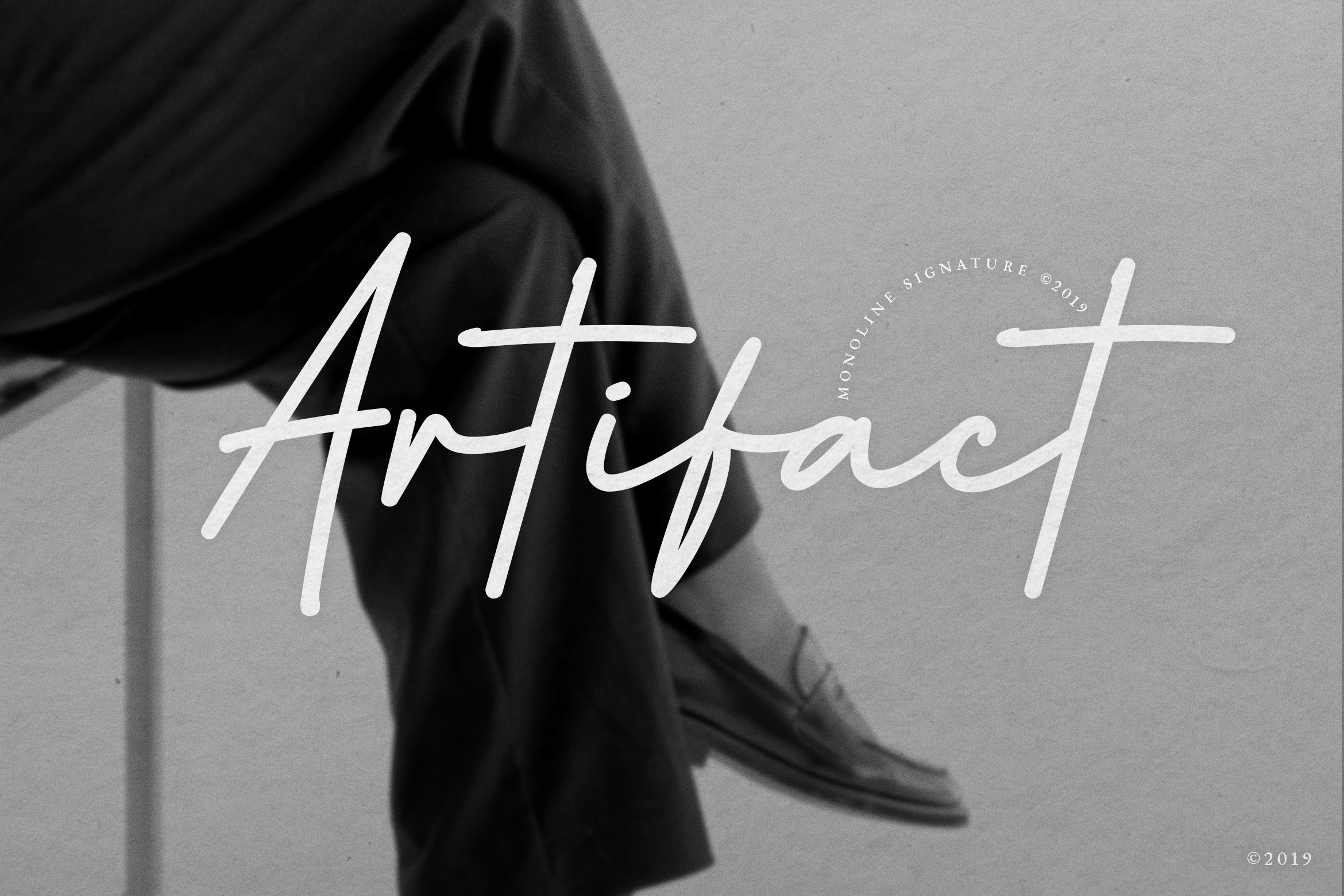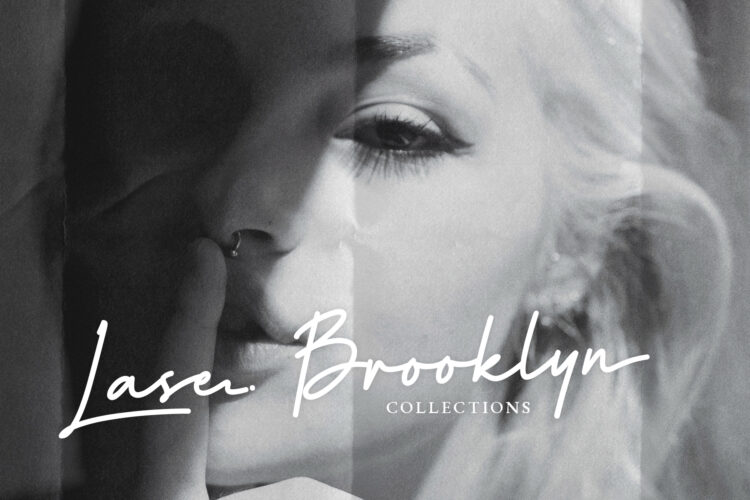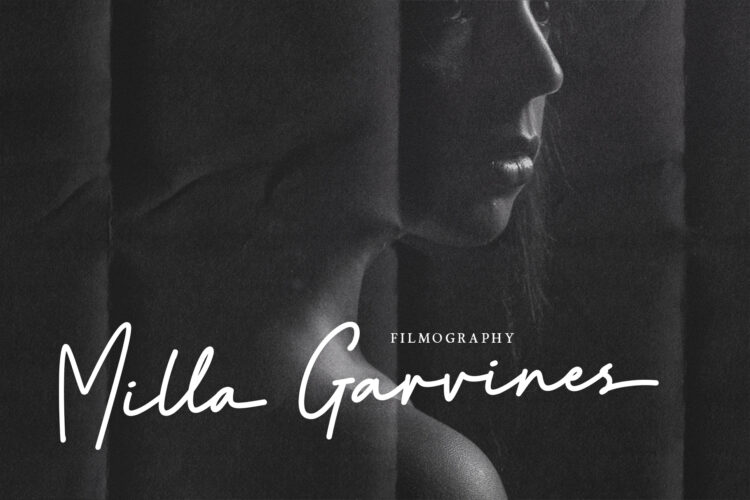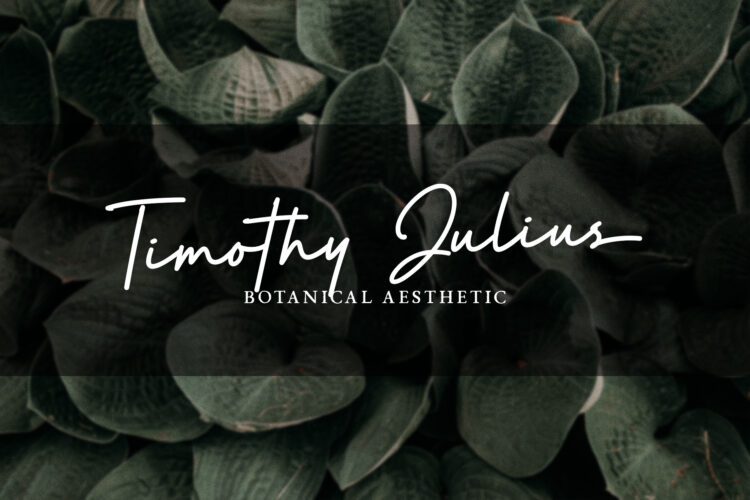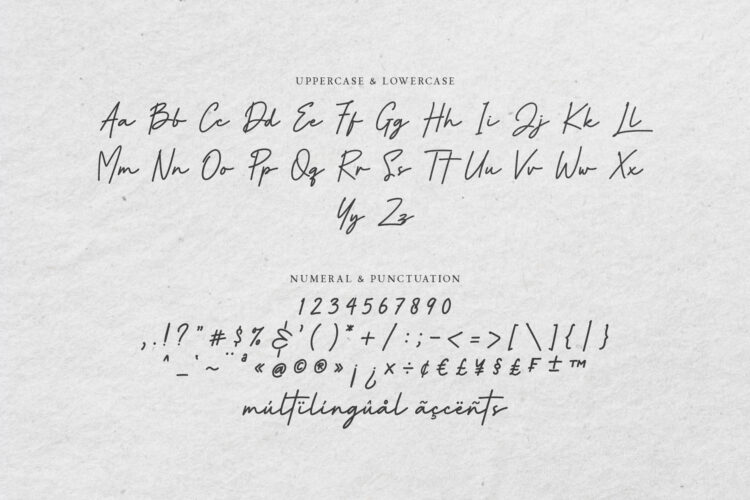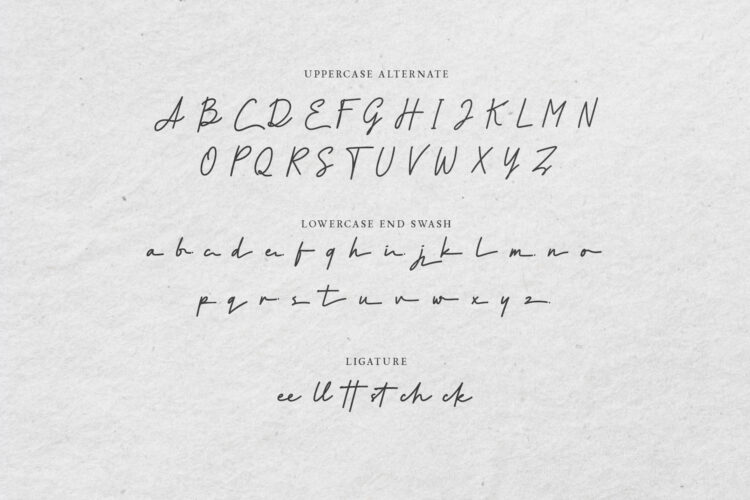
Artifact is a graceful monoline signature font designed to bring a personal, handwritten touch to branding and editorial projects.
With elegant, flowing curves and a stylish aesthetic, Artifact is perfect for logo design, personal signatures, fashion branding, wedding invitations, and minimalist social media content.
This font includes full uppercase and lowercase sets, numerals, extensive punctuation, ligatures, end swashes, and alternate uppercase characters for added flexibility.
Its consistent weight and refined execution make it easy to read while retaining an organic, authentic signature feel. Fully multilingual, it’s a go-to script for creators aiming for sophistication with simplicity.
Artifact – Monoline Signature Script